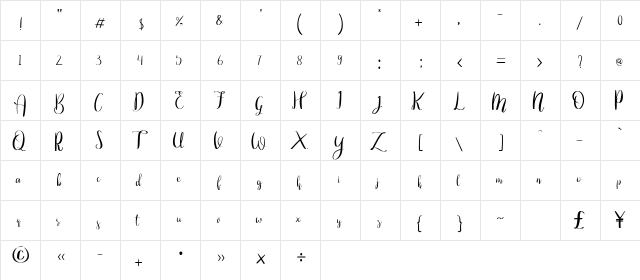
hestia Regular
Design Context for hestia Typeface
hestia is a composed and adaptable typeface that performs quietly and consistently across a wide range of design contexts.